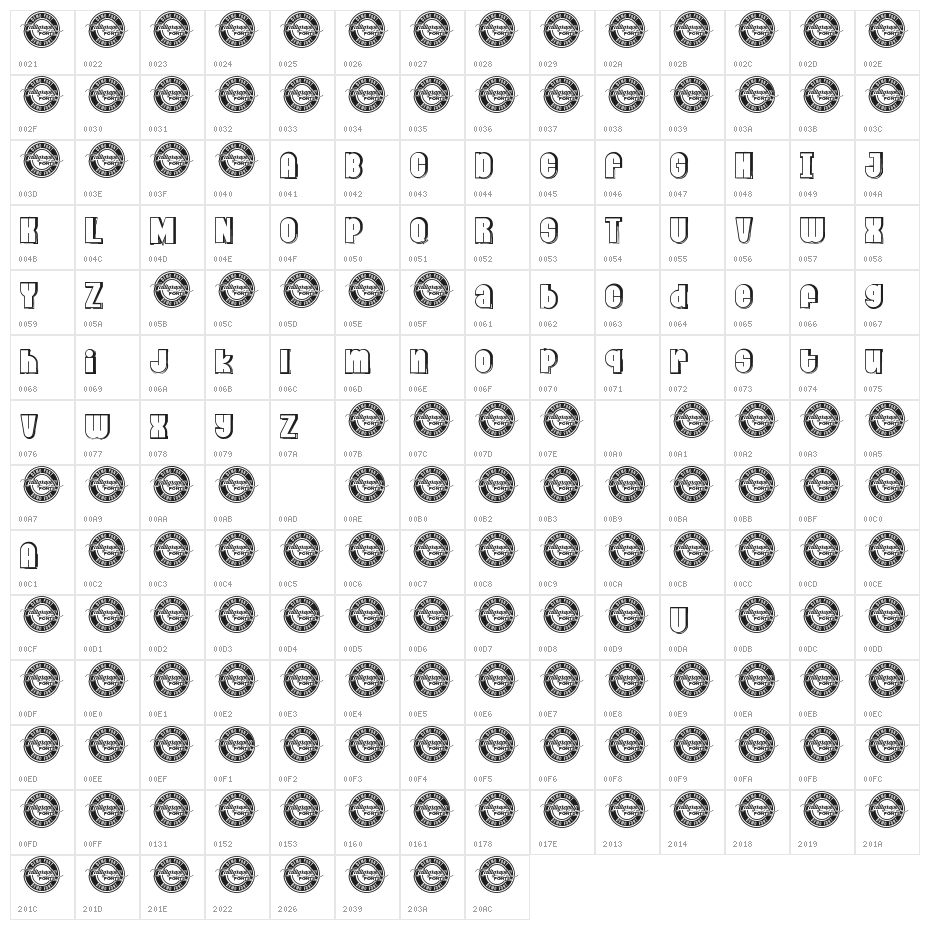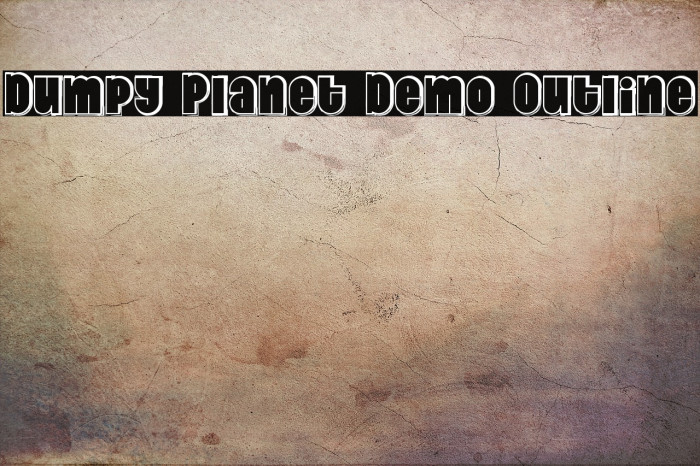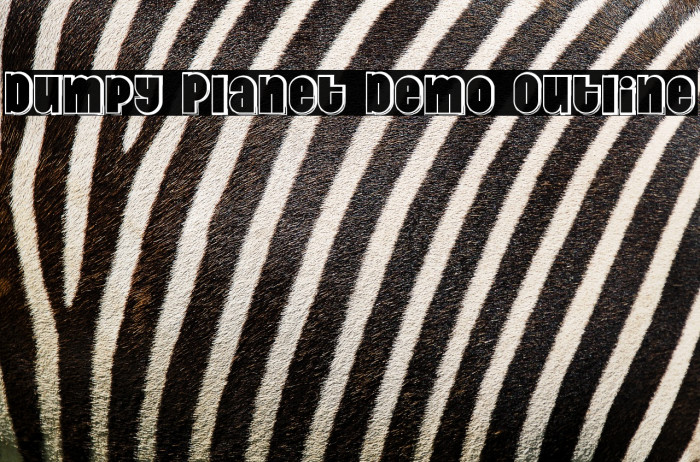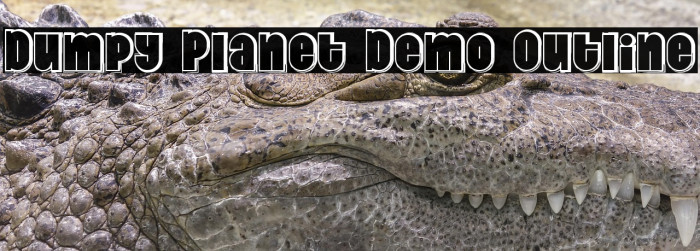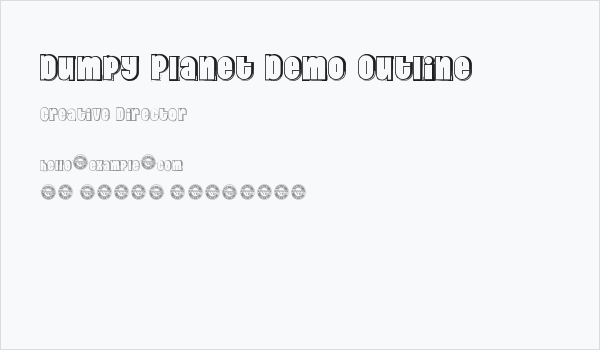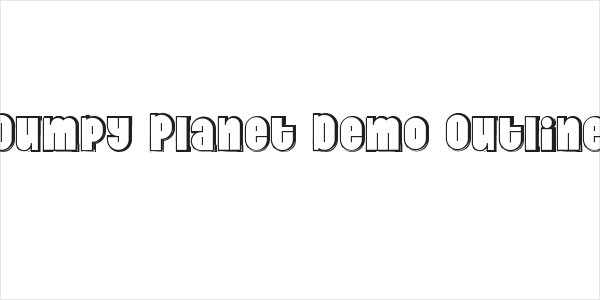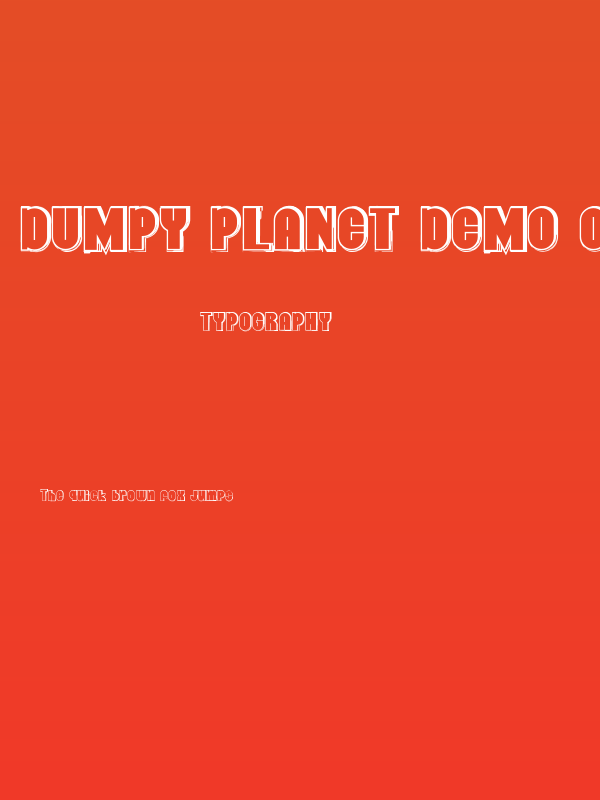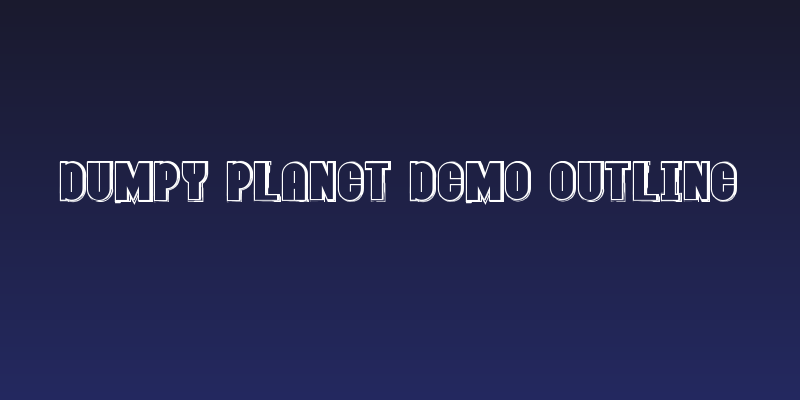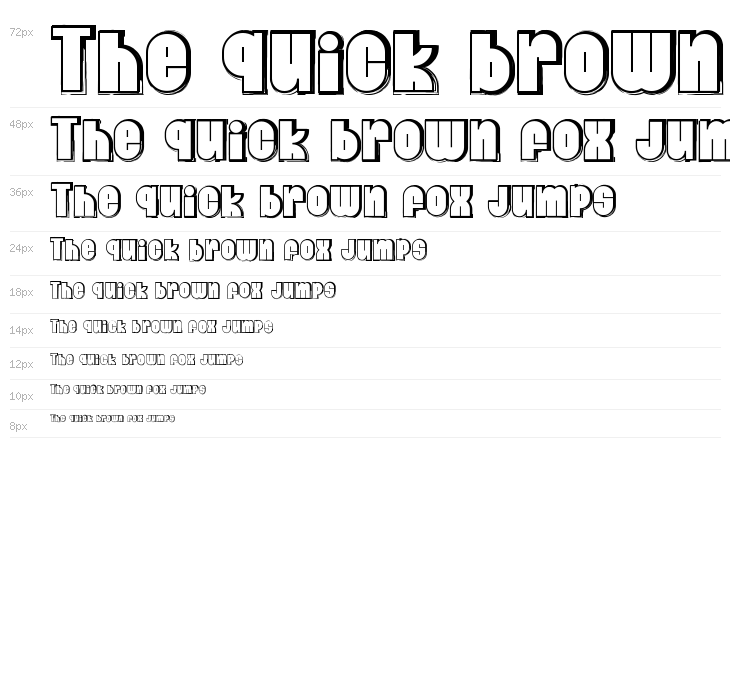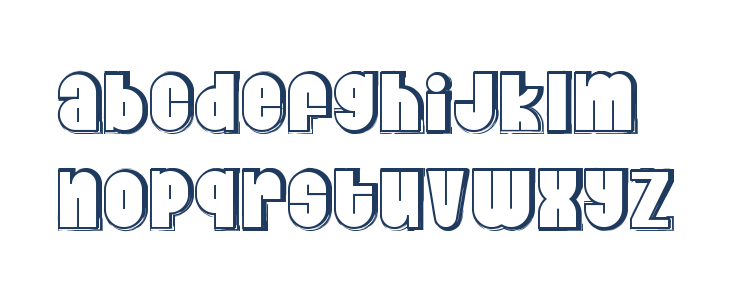
Dumpy Planet Demo Outline Font
Dumpy Planet Demo Outline Description
This font features a bold, playful outline style that combines a modern aesthetic with a touch of retro flair. The characters are outlined with a thick, consistent stroke, creating a striking visual impact. The uppercase and lowercase letters maintain a uniform width, contributing to a cohesive look. The font's geometric shapes and clean lines make it highly legible, while the outlined design adds a layer of depth and dimension. This style is ideal for capturing attention and conveying a sense of fun and creativity. The font's unique appearance makes it suitable for a variety of design projects that require a bold statement.